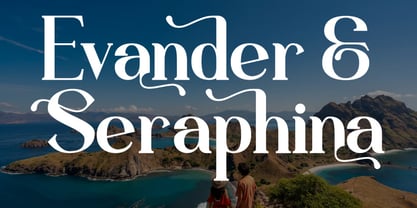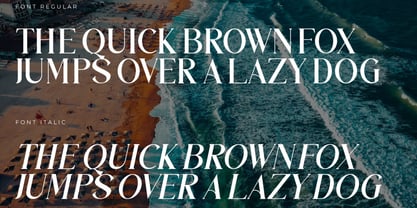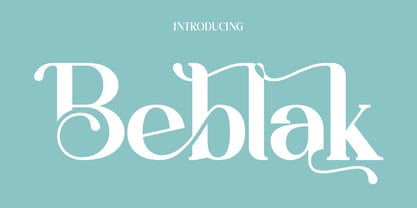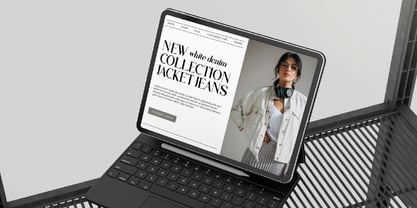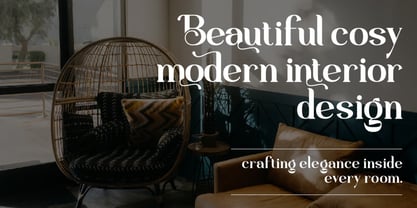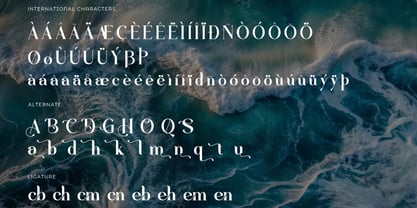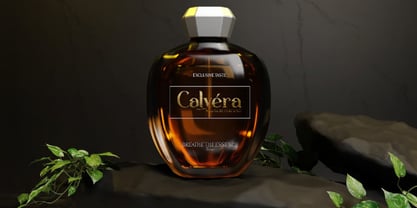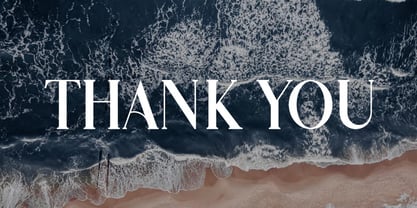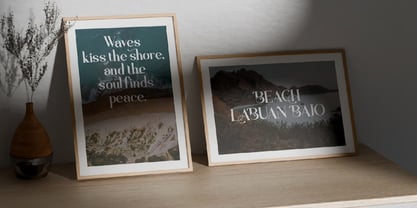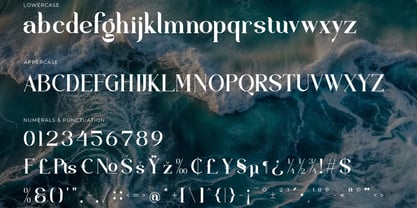
Beblak
by Hasnat Studio
The Beblak Font Family was designed by Hasnat Khan and published by Hasnat Studio. Beblak contains 1 styles. More about this family
Beblak is a premium serif typeface designed for creators seeking a distinctive, refined, and upscale aesthetic in their work. Its elegant structure, balanced proportions, and polished serif detailing provide a luxurious feel that enhances branding, editorial layouts, logos, packaging, and any design that demands sophistication and clarity. Crafted with versatility in mind, Beblak includes ligatures, stylistic alternates, and multilingual support, making it a powerful and flexible choice for both digital and print projects. Whether you're developing a modern brand identity or creating timeless visual assets, Beblak ensures your typography stands out with elegance. ✿ Key Features: - Premium Serif Letterforms: Distinctive, elegant, and perfect for upscale designs. - Alternates & Ligatures: Boost creativity with stylistic variations. - PUA Encoded Characters: Access all features without the need for specialized software. - Multilingual Support: Covers 65 languages, including Afrikaans, Albanian, Catalan, Danish, Dutch, Filipino, French, German, Indonesian, Italian, Norwegian, Portuguese, Spanish, Swedish, Zulu, and more. - Full Software Compatibility: Seamlessly integrates with Adobe Illustrator, Photoshop, InDesign, and Microsoft Word. - Easy Installation: Quick setup for both PC and Mac users. ✿ Perfect For: - Branding & Logo Design - Editorial & Magazine Layouts - Luxury Packaging & Product Labels - Web Design & Digital Media - Invitations, Stationery & Posters - Marketing Materials & Social Media Graphics. Elevate every project with Beblak — a premium serif typeface that combines distinction, elegance, and timeless craftsmanship for a truly polished design experience.